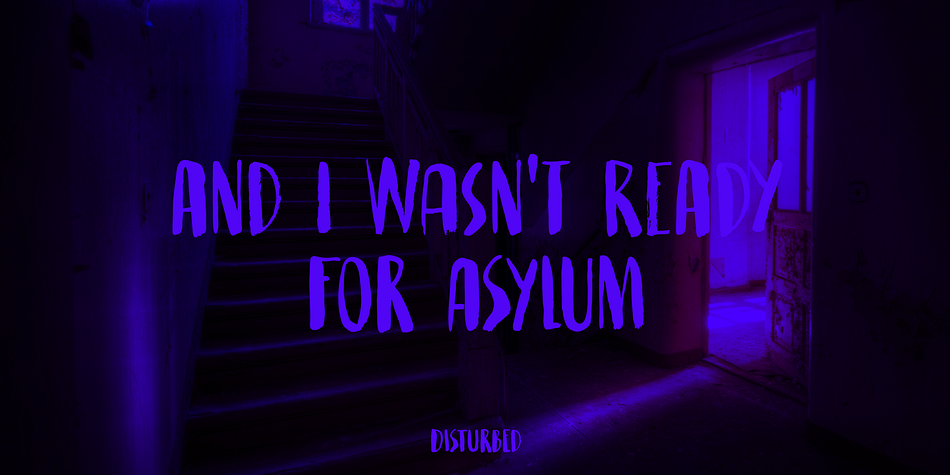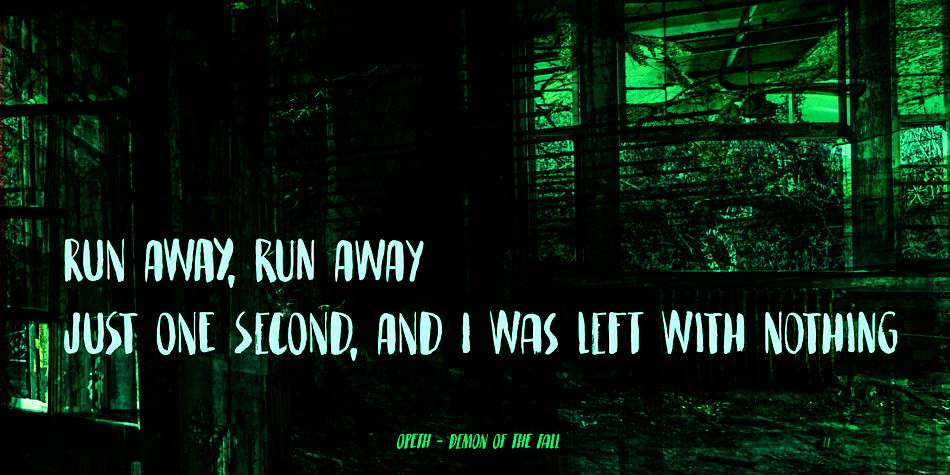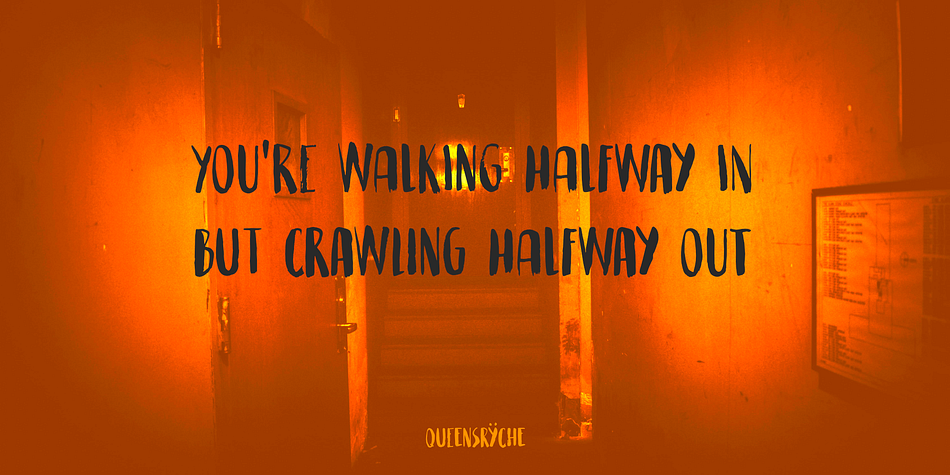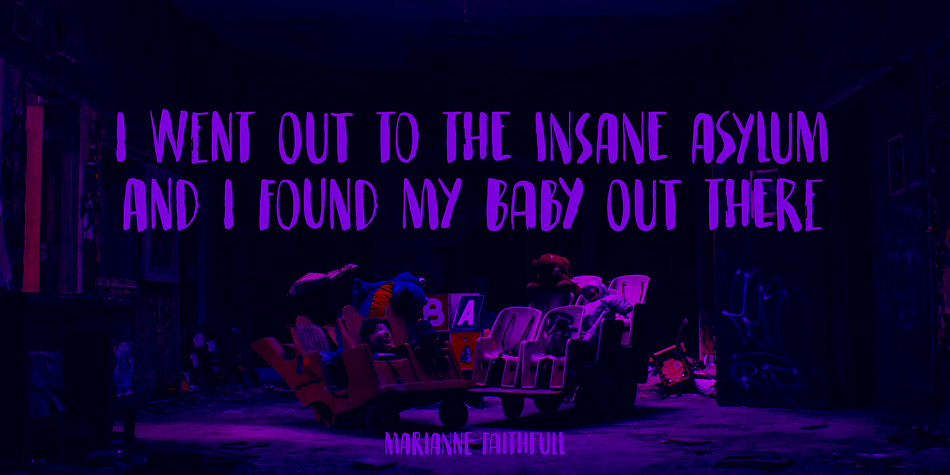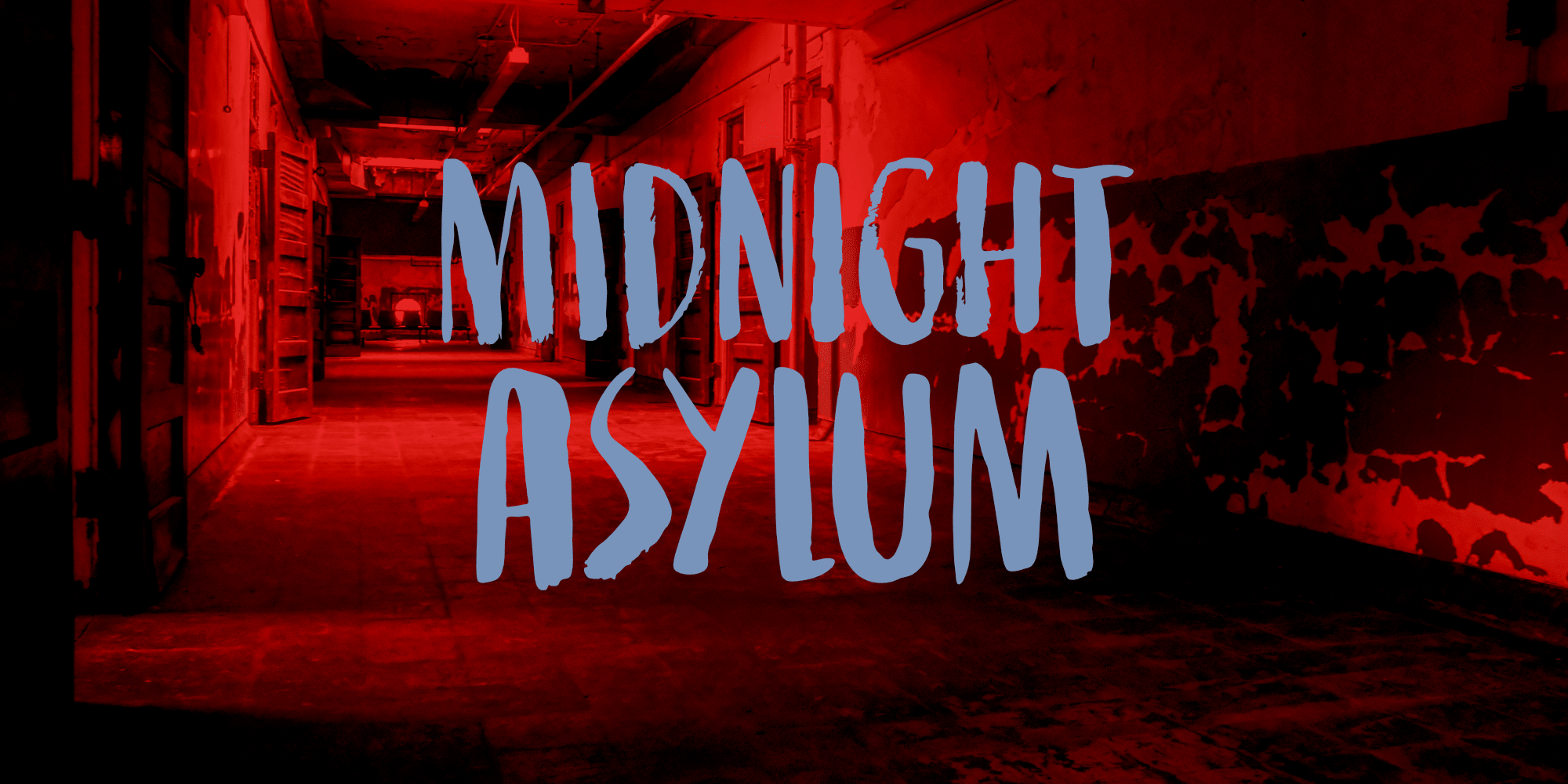
Midnight Asylum
Midnight Asylum is a brush display and hand display font family. This typeface has two styles and was published by Kitchen Table Type Foundry.
I have no fantastic story on how I came up the name to share with you. I am currently not in an asylum, nor will I be in the near future. I also finished this font way before midnight, so it is just a crazy name for a scary looking font!
Midnight Asylum was made with a pencil and Chinese ink. It comes with a full set of alternates for the lower case letters, extensive language support and a cute .notdef character, which is also the alternate asterisk glyph.